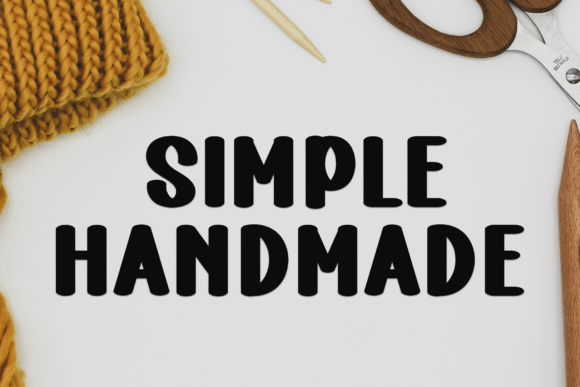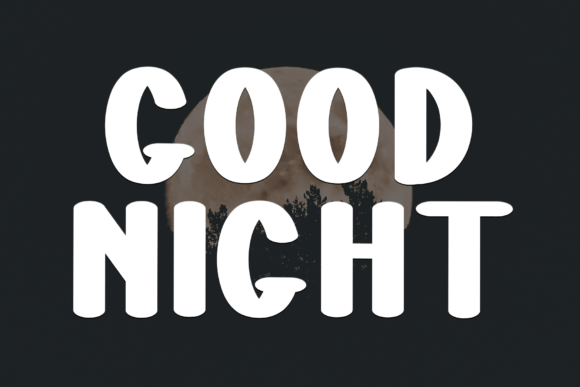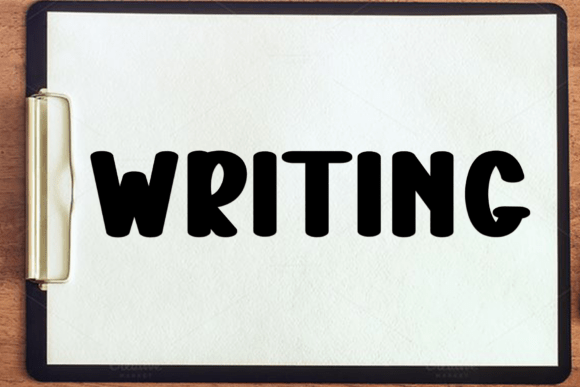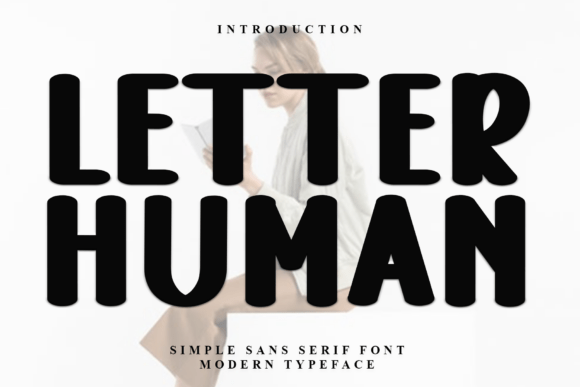
Introduction to Letter Human Font
Letter Human is a beautiful and eye-catching font designed with a soft, unique touch.
Its distinctive strokes give it a special character, making it meaningful and versatile for future use With various characters, it’s perfect for design projects, crafts, and other creative works.
Key Features of Letter Human Font
Why Choose Letter Human Font?
Letter Human Font offers exceptional quality and versatility, making it a valuable addition to your design toolkit. Whether you’re creating for personal projects or commercial use, Letter Human Font delivers professional results.